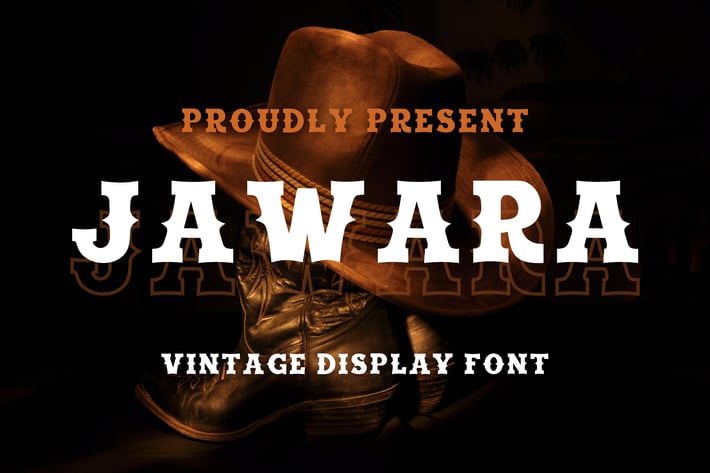
Jawara | Display Font
Introducing "Jawara," a Display font that captures the rugged spirit of the Wild West. With its bold, vintage letterforms and rustic charm, this font is perfect for adding a touch of frontier flair to your projects. Ideal for posters, logos, branding, and themed events